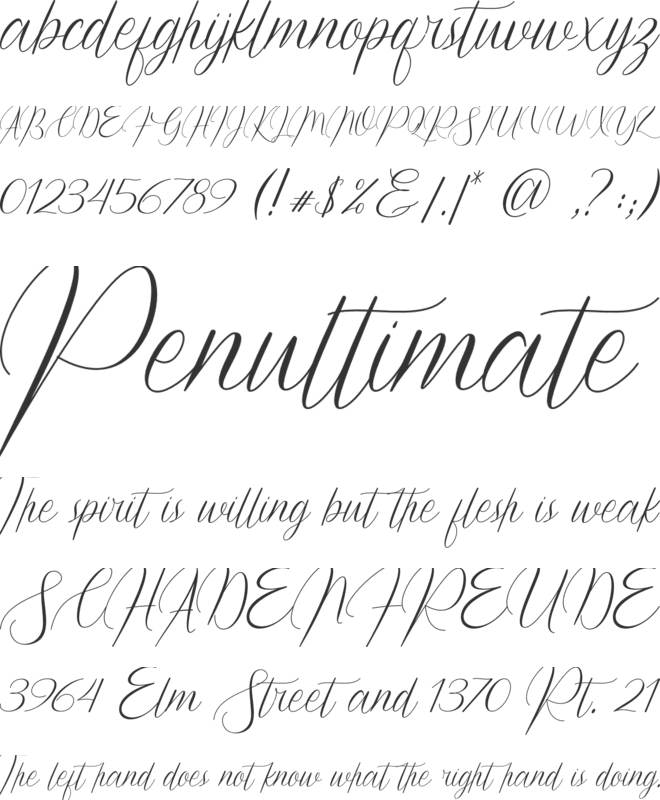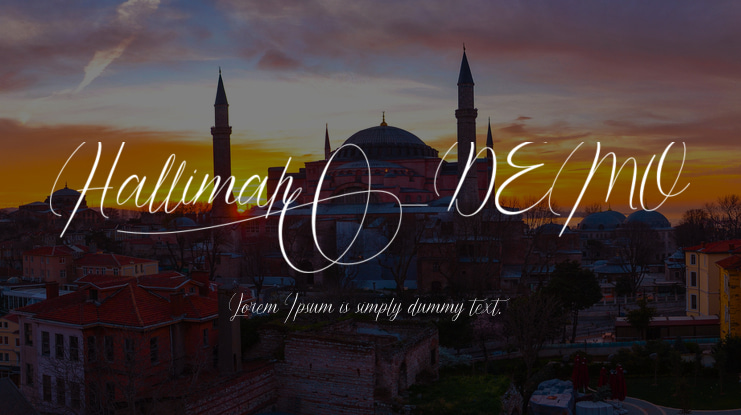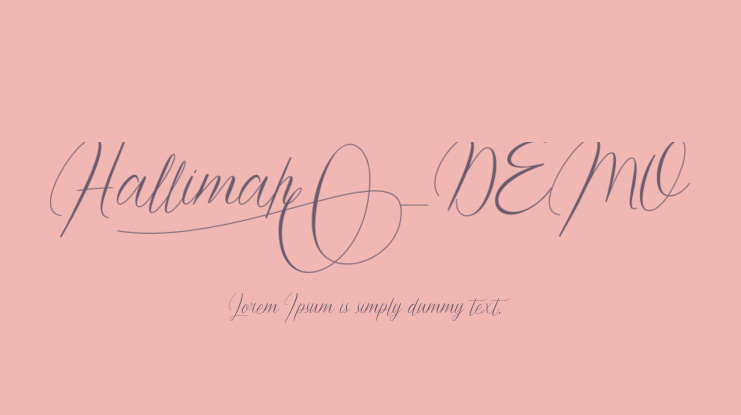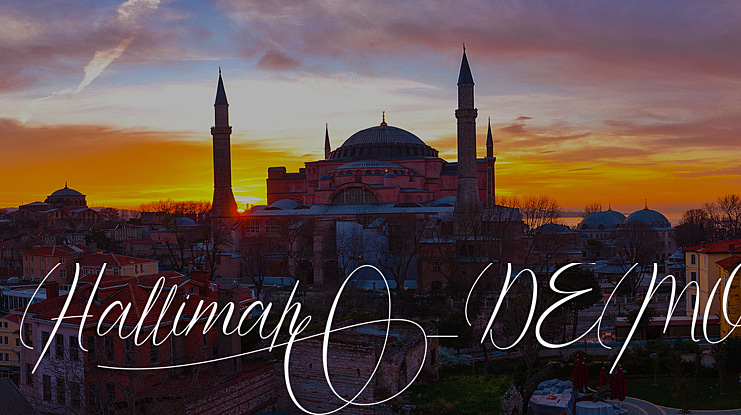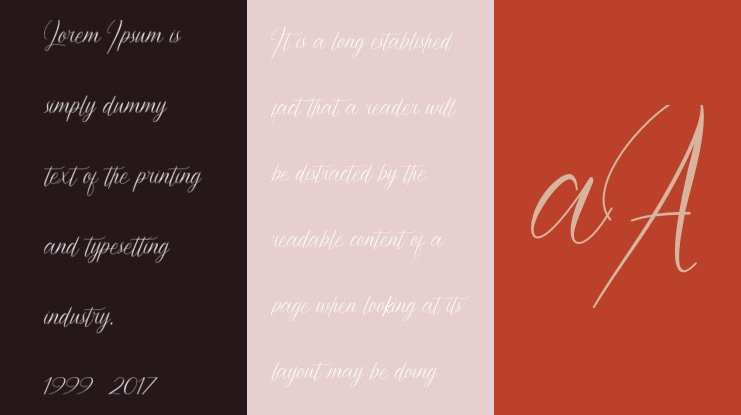
Hallimah_DEMO Font
Omotu 2019
DETAILS Hallimah! A script font with 2 styles, regular and monoline. Hallimah font is perfect for branding, product packaging, quotes, flyer, poster.